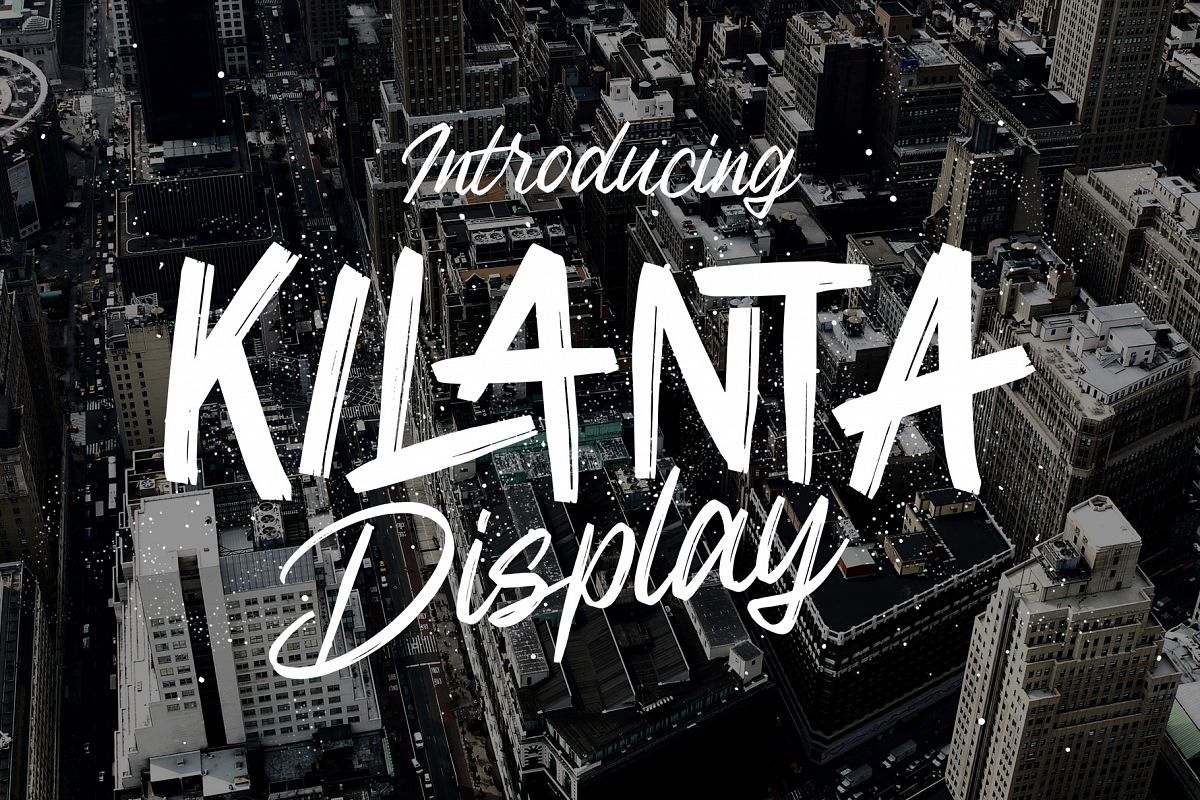
Kilanta Display - Font Duo
Kilanta Script
Kilanta Display
Introducing Kilanta Display - Font Duo which has a hand lettering brush style. So it looks natural like a handmade. This font is best used for your design project that has the concept of fun, girly, romantic and elegant. Can also be applied to the design of a logotype, header website, wedding logo, romantic design, makes some lettering a quote, T-shirt design etc.